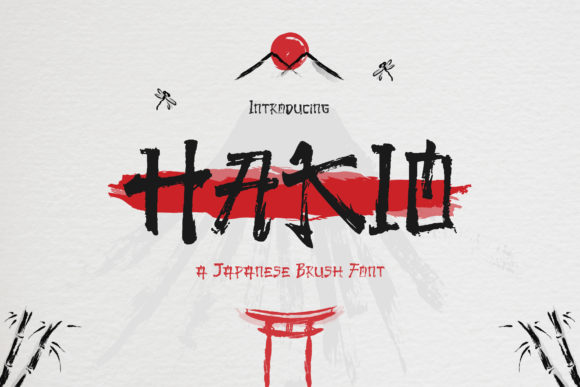
Unleash your wild side with Hakio Font, the untamed spirit of Japanese-inspired typography. This display font is a captivating blend of tradition and modernity, drawing inspiration from the rich heritage of Japanese calligraphy. With its bold strokes and dynamic energy, Hakio is the perfect font to make a statement and leave a lasting impression.
Experience the power of Hakio's striking presence, commanding attention effortlessly. Its sharp angles and organic curves create a visual symphony, adding a touch of intrigue and sophistication to any design. Whether you're crafting a bold headline, creating an eye-catching poster, or designing a unique logo, Hakio is your ultimate weapon of choice.
Immerse yourself in the versatility of Hakio, a font that effortlessly adapts to a multitude of creative endeavors. Its inherent charm shines through whether you're designing a captivating T-shirt, crafting an alluring print, or establishing a memorable brand identity for your restaurant. Hakio's adaptability knows no bounds, making it the perfect companion for a diverse range of projects.
With Hakio, readability takes center stage. Its carefully crafted letterforms ensure effortless comprehension, even in the most complex layouts. This makes it an ideal choice for projects where clarity and legibility are paramount, such as brochures, presentations, or website content. Hakio's unwavering commitment to readability ensures your message is delivered with crystal-clear precision.
Hakio is more than just a font; it's an experience. Its bold, expressive strokes evoke a sense of adventure and exploration, inviting you to embark on a journey of creative discovery. Whether you're a seasoned designer or just starting out, Hakio becomes your passport to a world of boundless possibilities. Unleash your creativity and let Hakio guide you to typographic greatness.